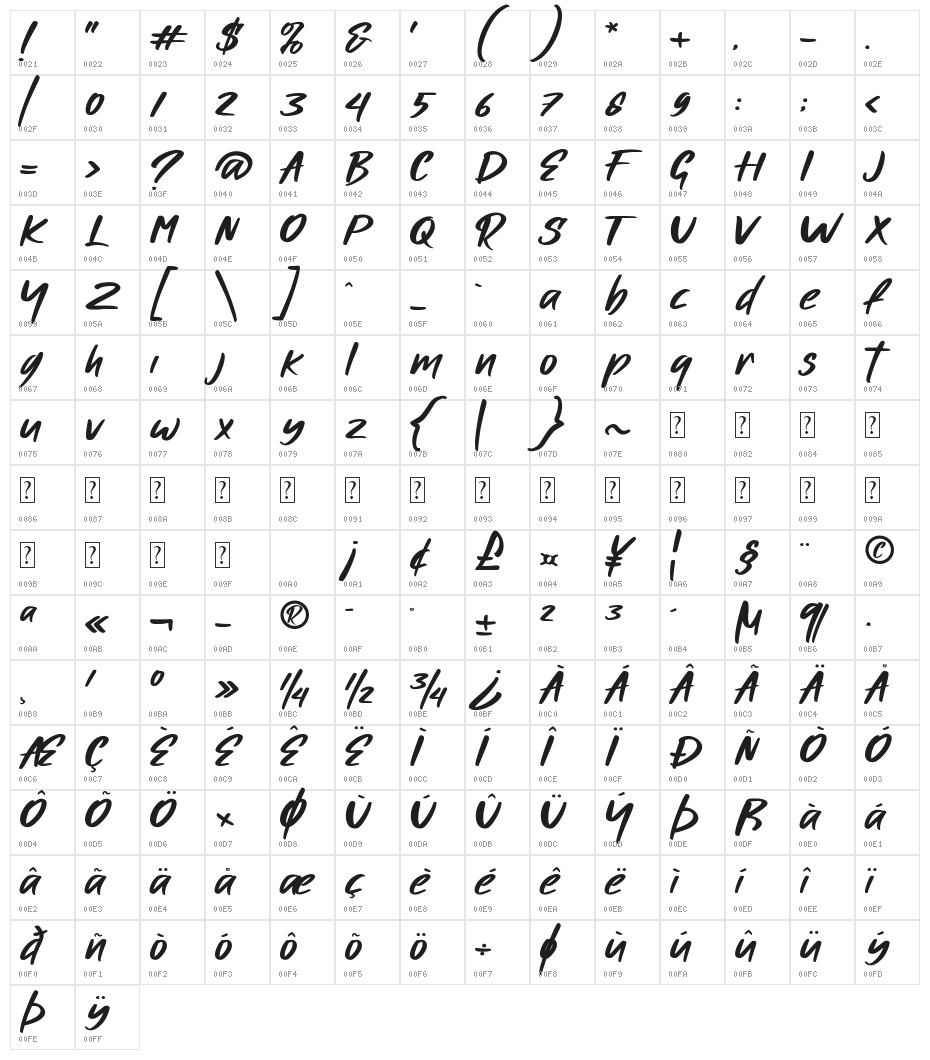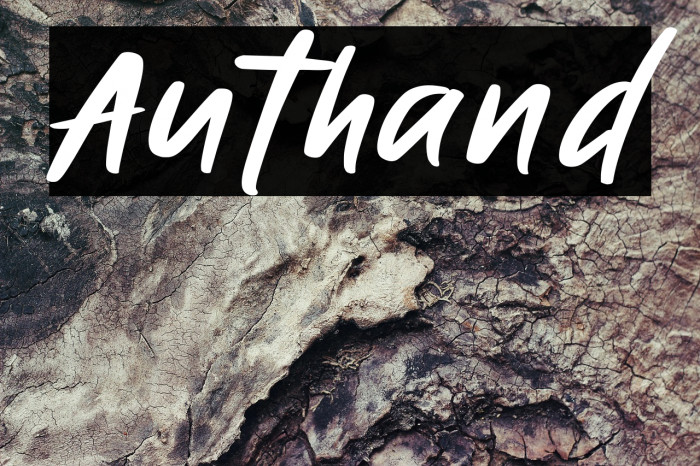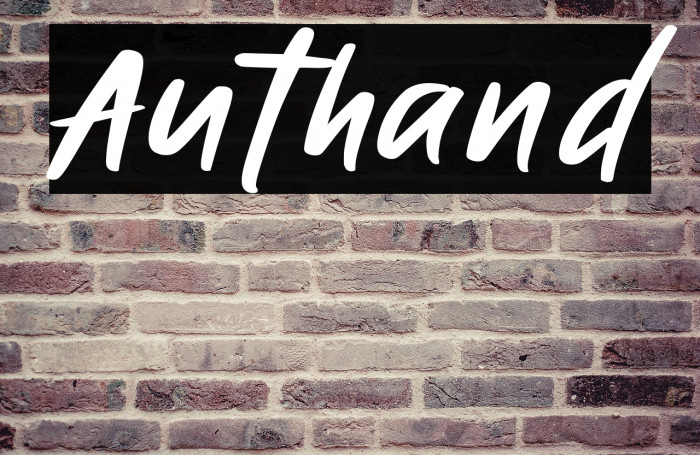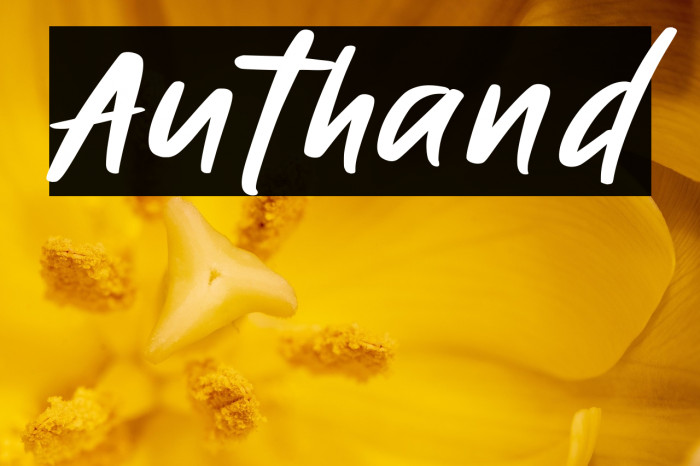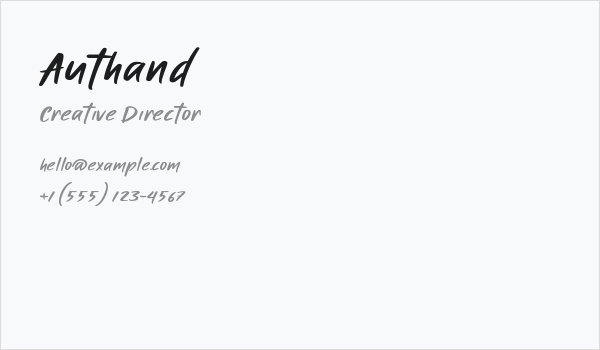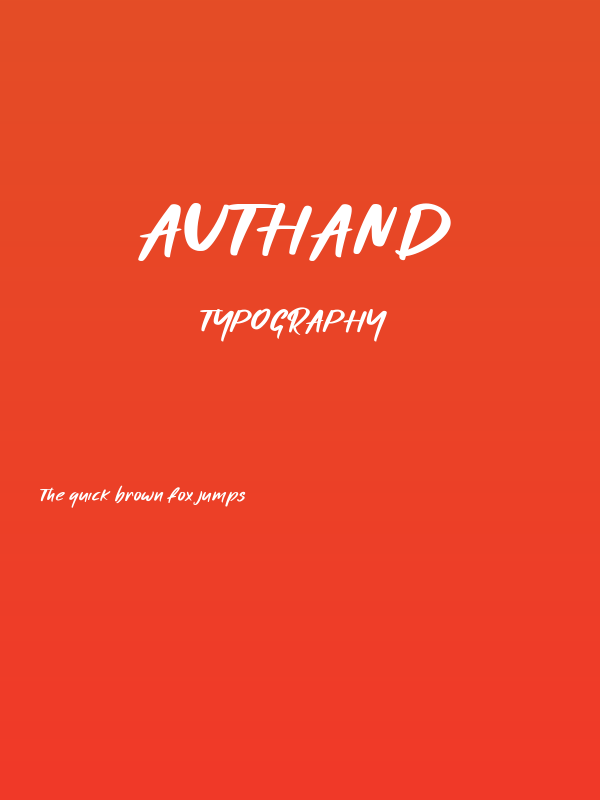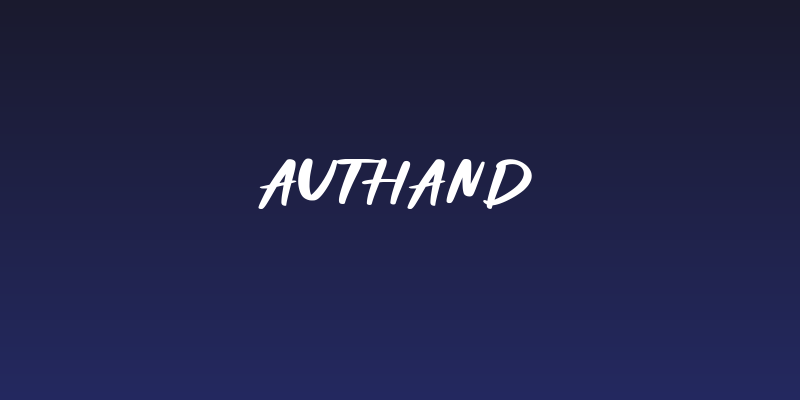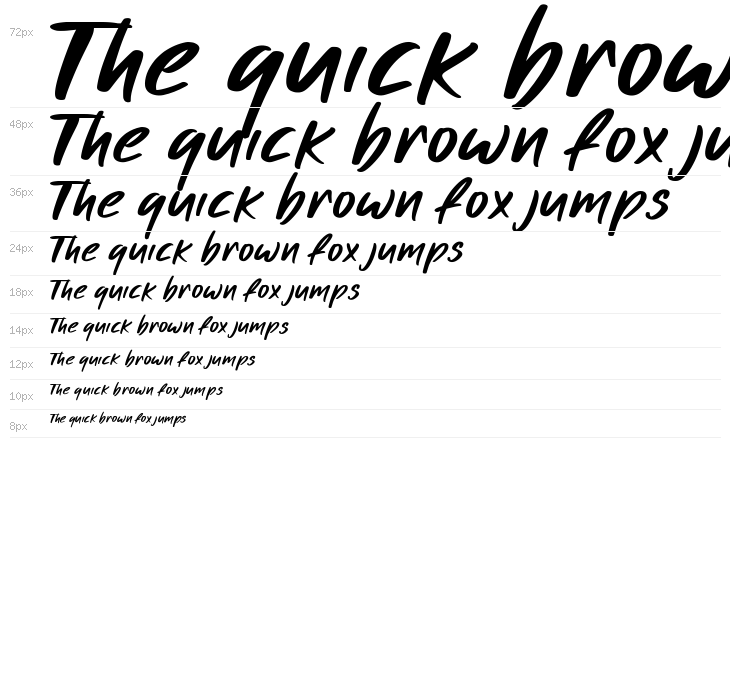
Authand Font
Authand Description
This font exudes a dynamic and energetic style, characterized by its bold and fluid strokes that mimic the natural flow of handwriting. The letters are slightly slanted, adding a sense of motion and liveliness. Each character is distinct, with a playful yet sophisticated appearance, making it suitable for creative and expressive designs. The uppercase letters are bold and commanding, while the lowercase letters maintain a consistent flow, enhancing readability. The numbers and special characters are equally expressive, maintaining the overall aesthetic of the font.
| Use Case | Logos, Headlines, Posters |
| Proposed Projects | Ideal for branding, invitations, greeting cards, and social media graphics. |